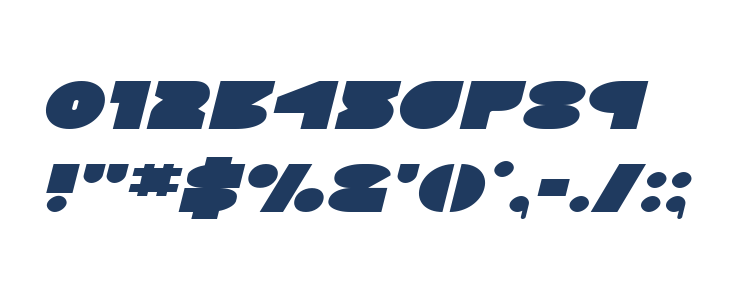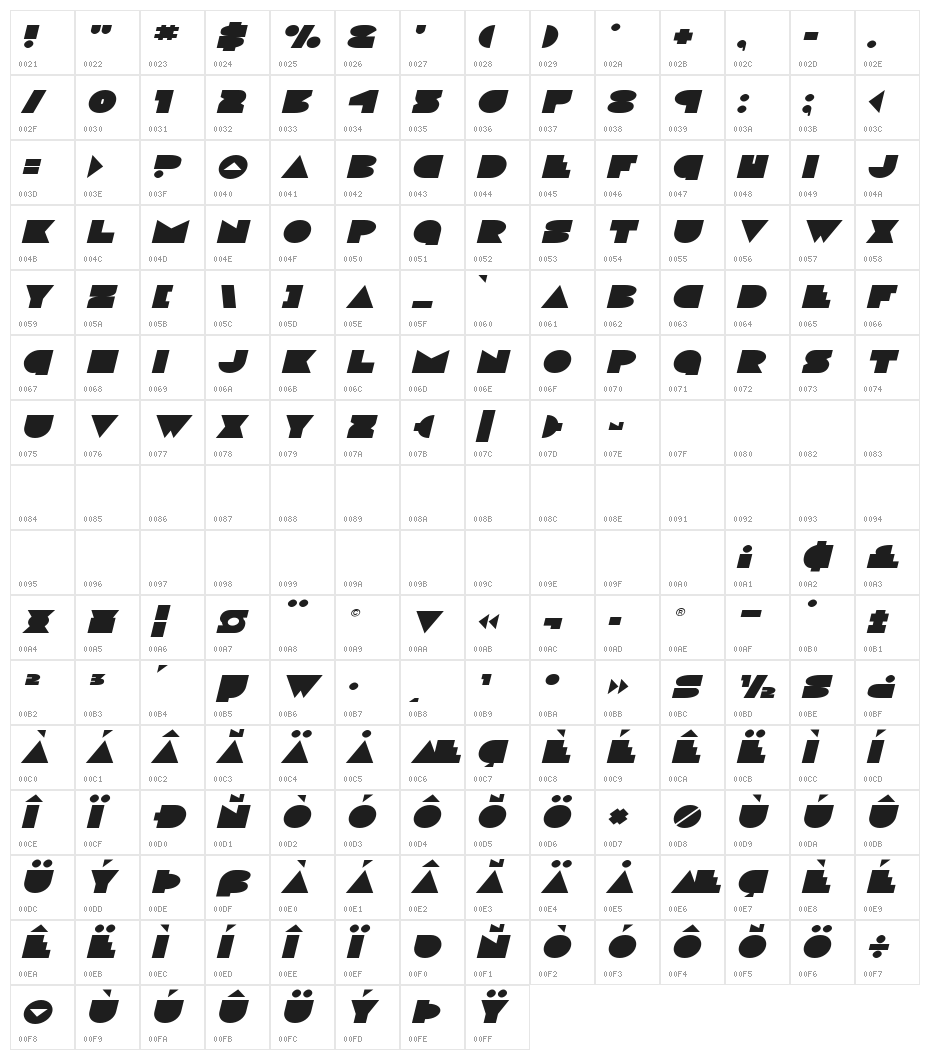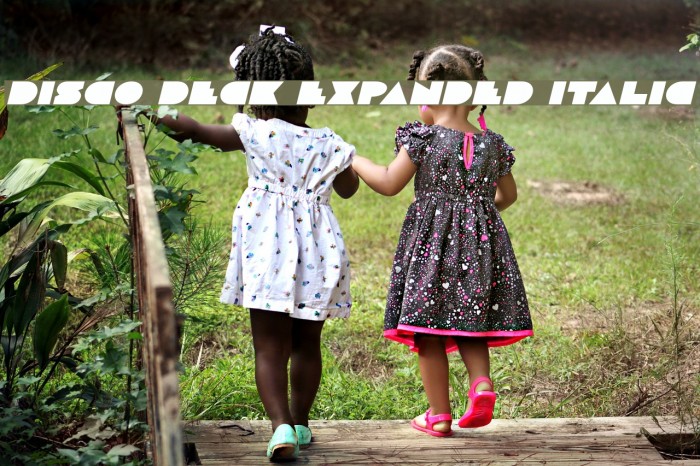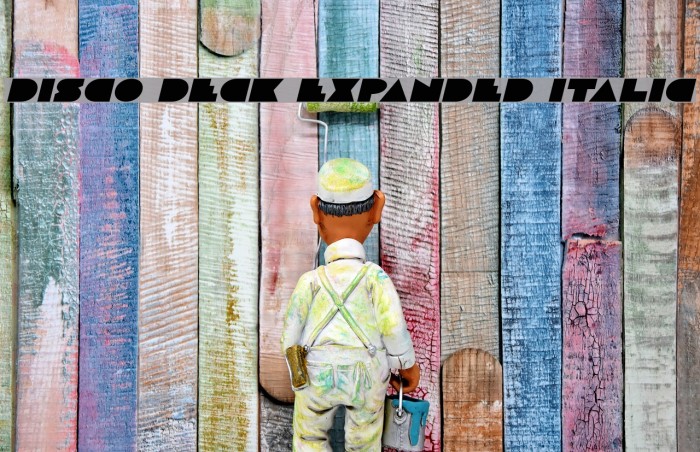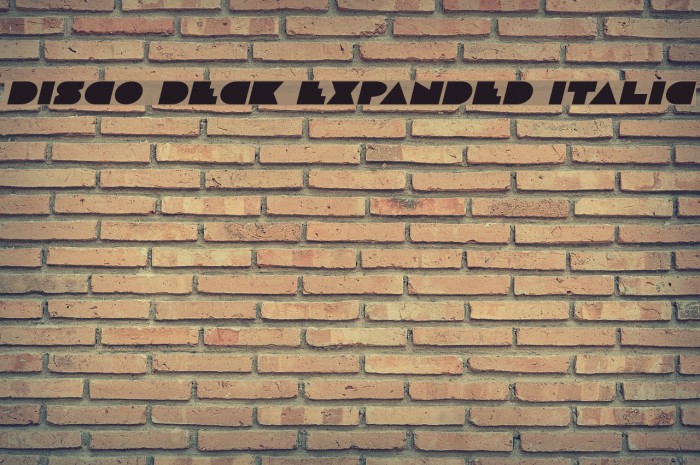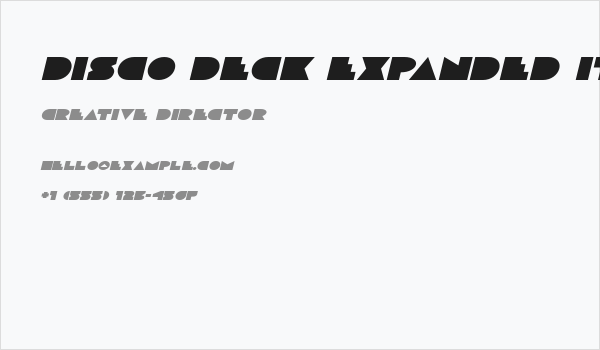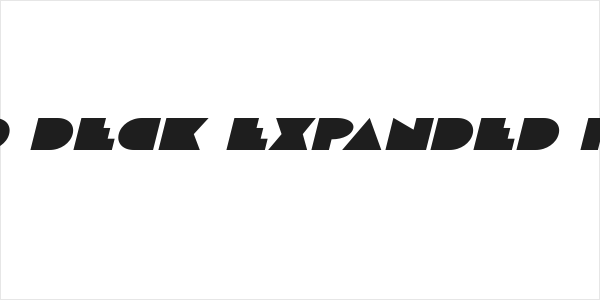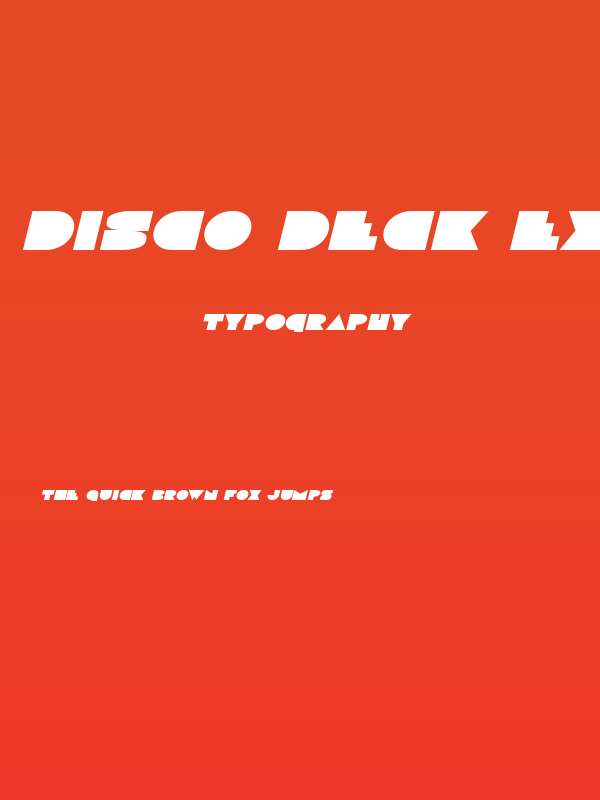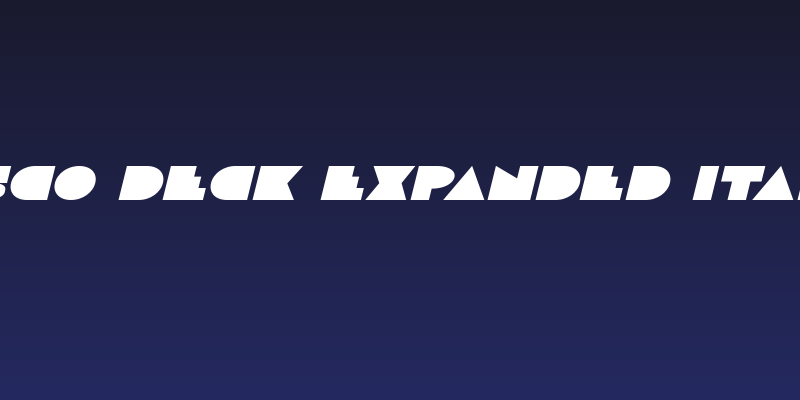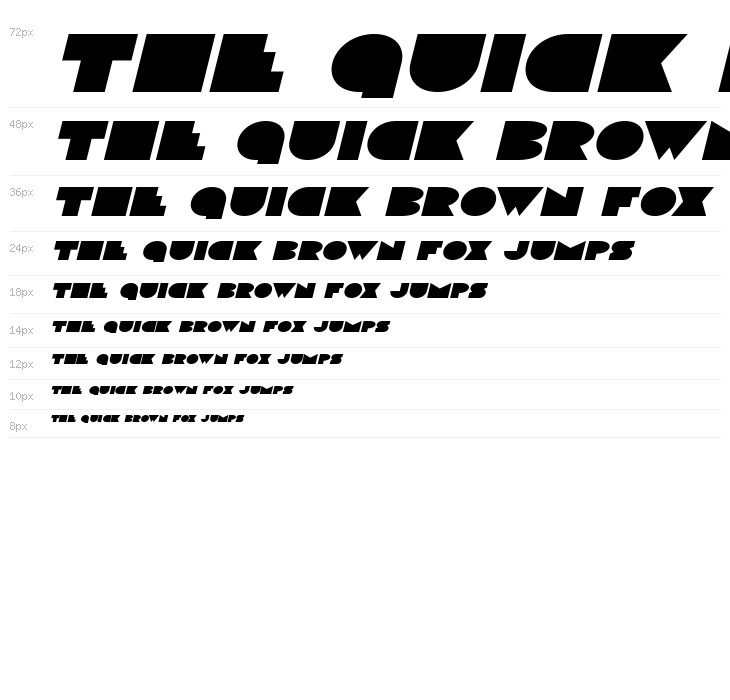
Disco Deck Expanded Italic Font
Disco Deck Expanded Italic Description
This font features a bold and dynamic style with a distinct geometric flair. The characters are designed with sharp angles and a wide stance, giving them a strong presence. The italic slant adds a sense of movement and energy, making it ideal for attention-grabbing designs. The expanded width of the characters enhances their boldness, while the consistent stroke thickness provides a uniform appearance. The font's unique style is reminiscent of retro and disco aesthetics, making it perfect for projects that require a touch of nostalgia and vibrancy.
| Overall Style | Retro, Energetic, Geometric |
| Proposed Projects | Ideal for posters, album covers, event flyers, and branding that seeks a retro or energetic feel. |